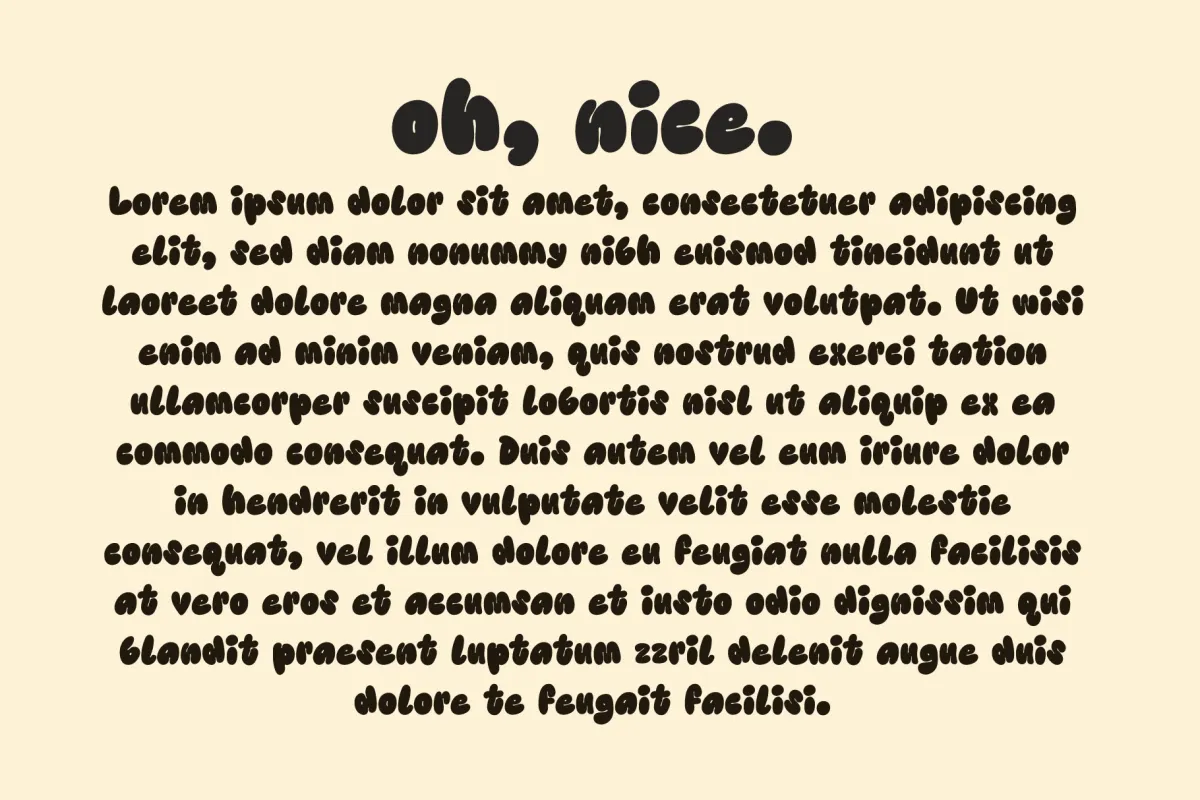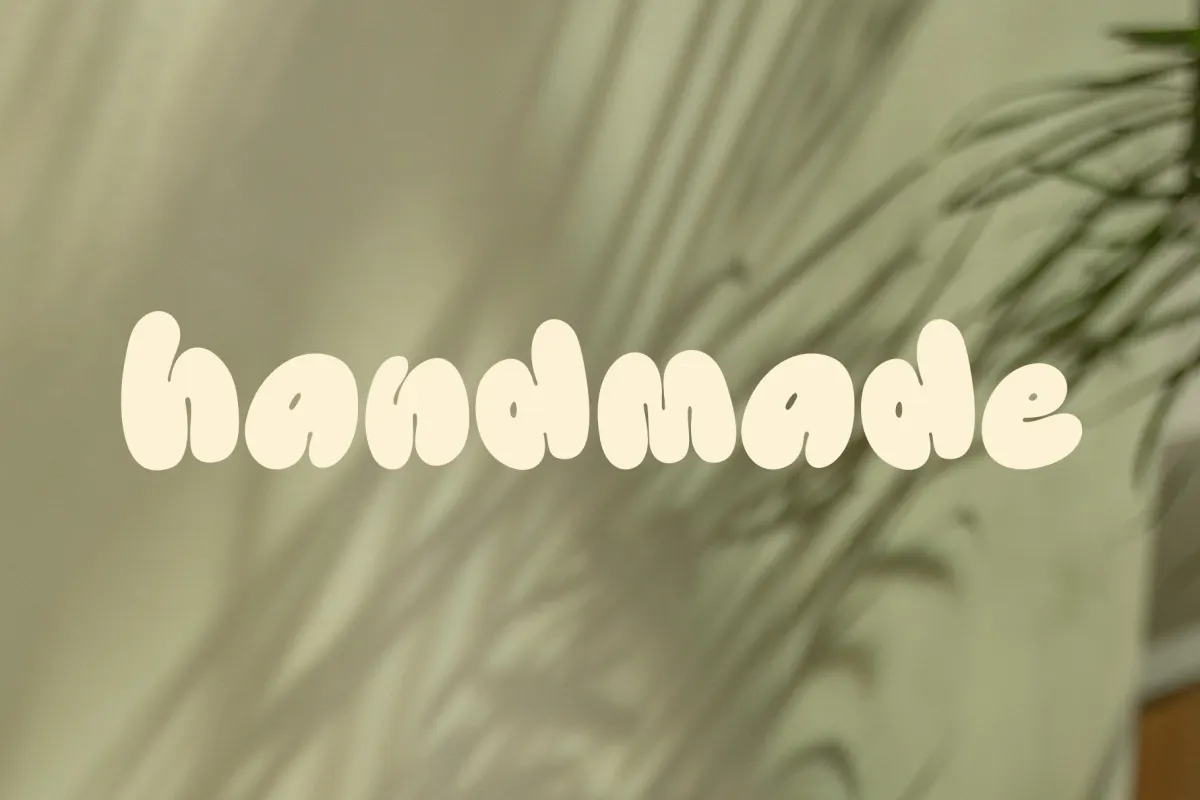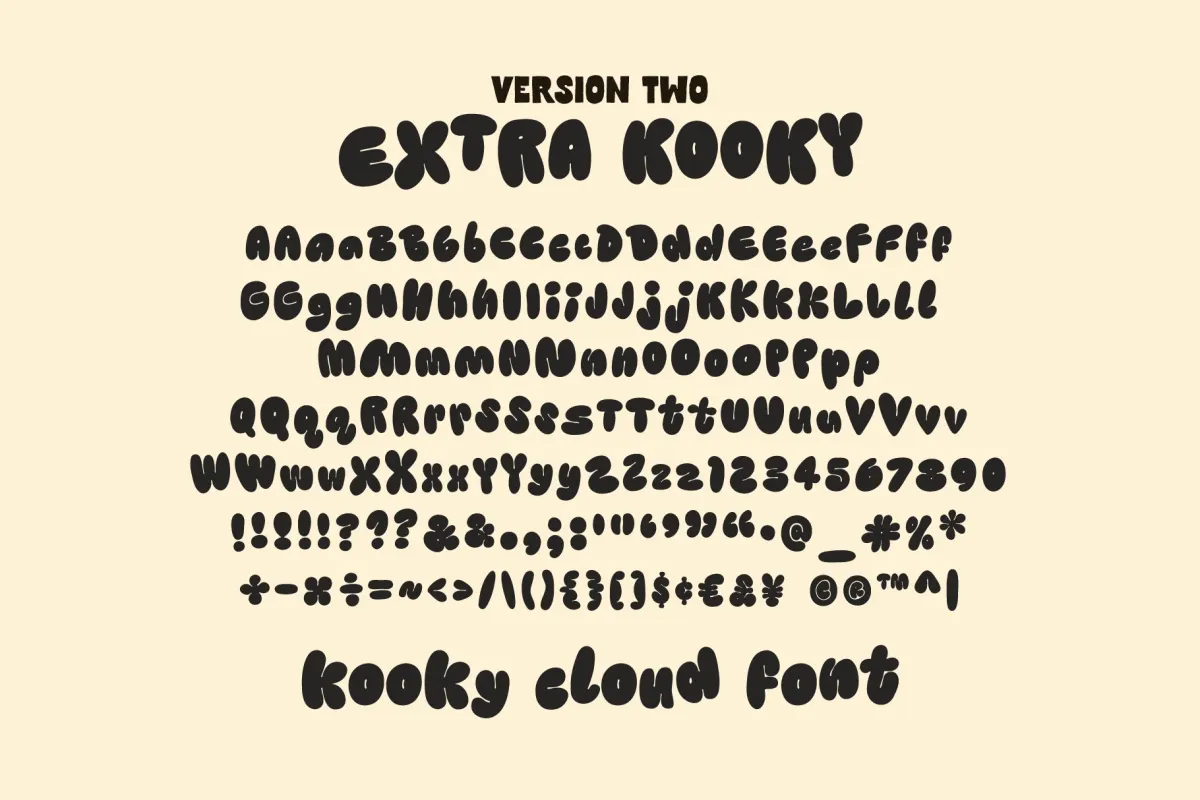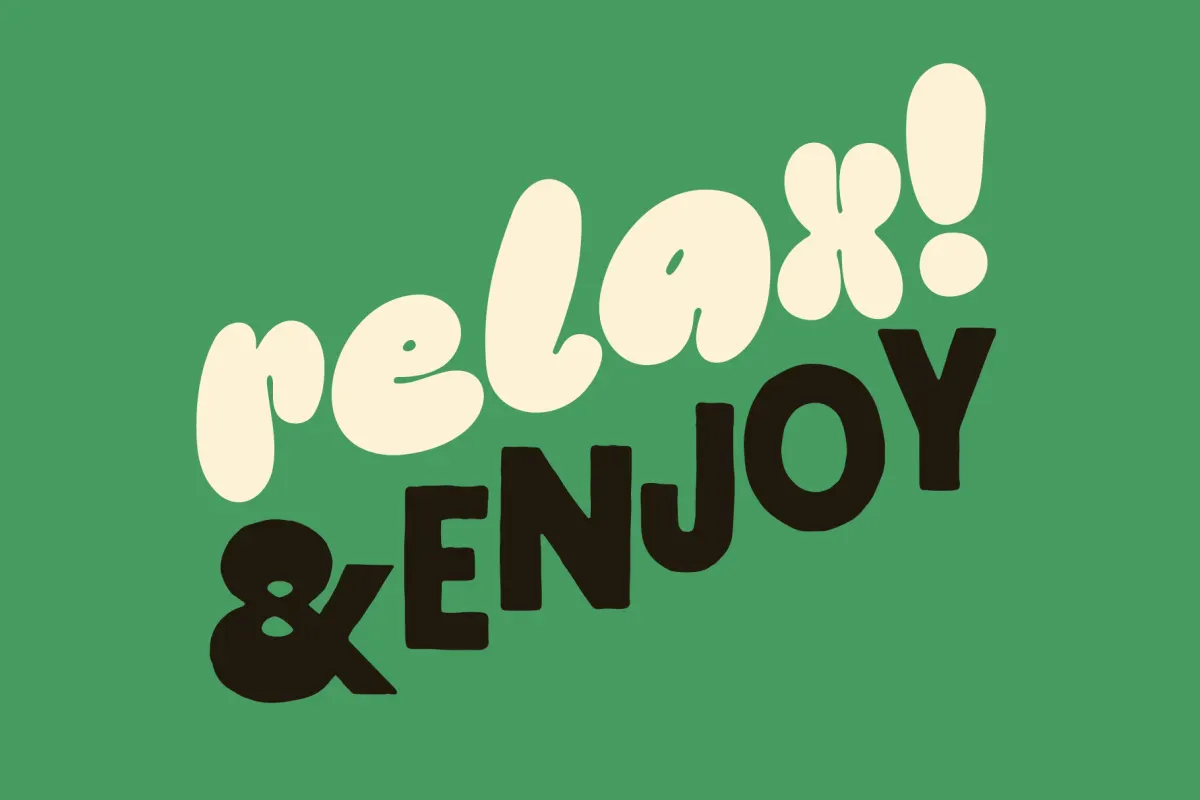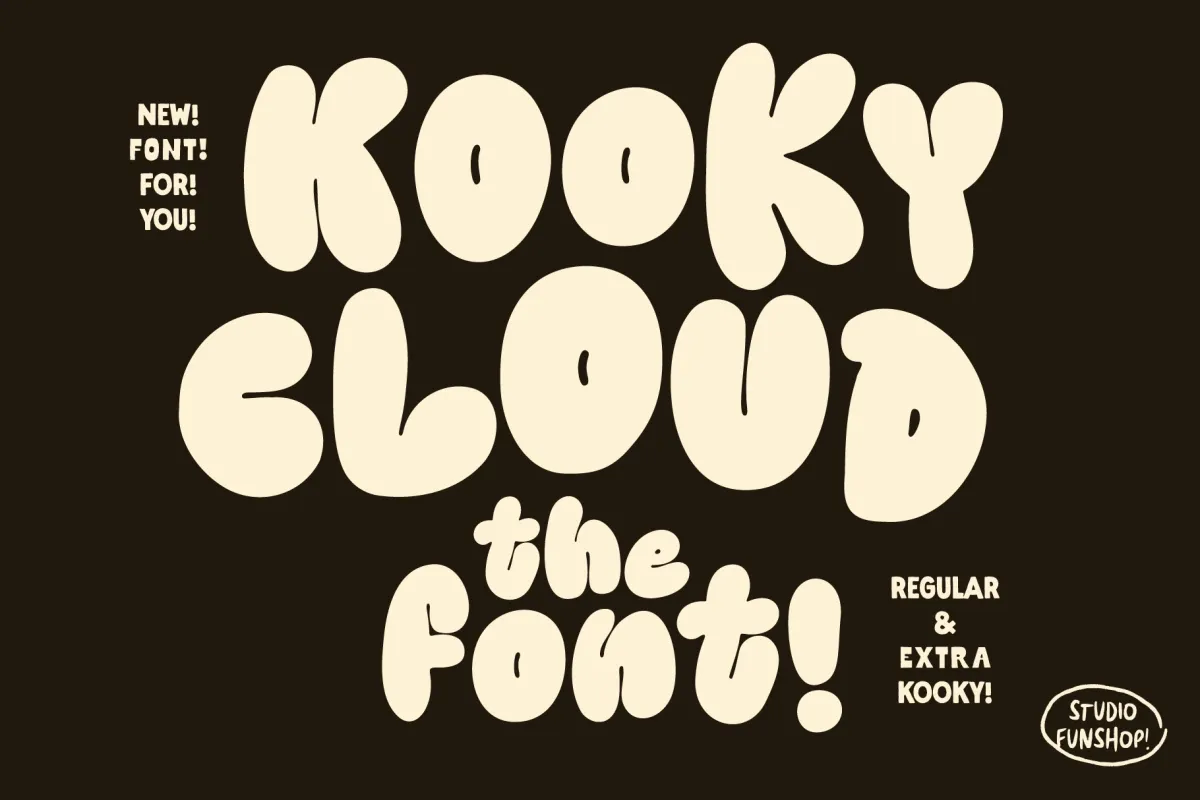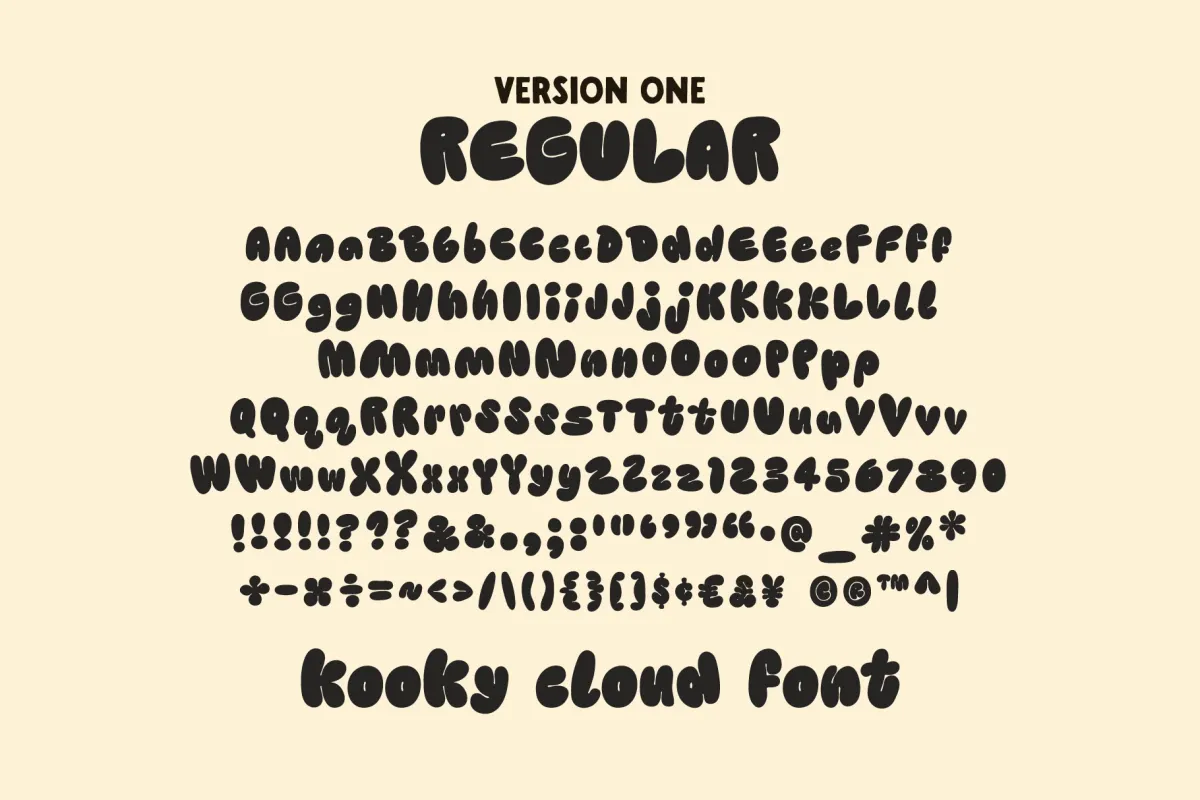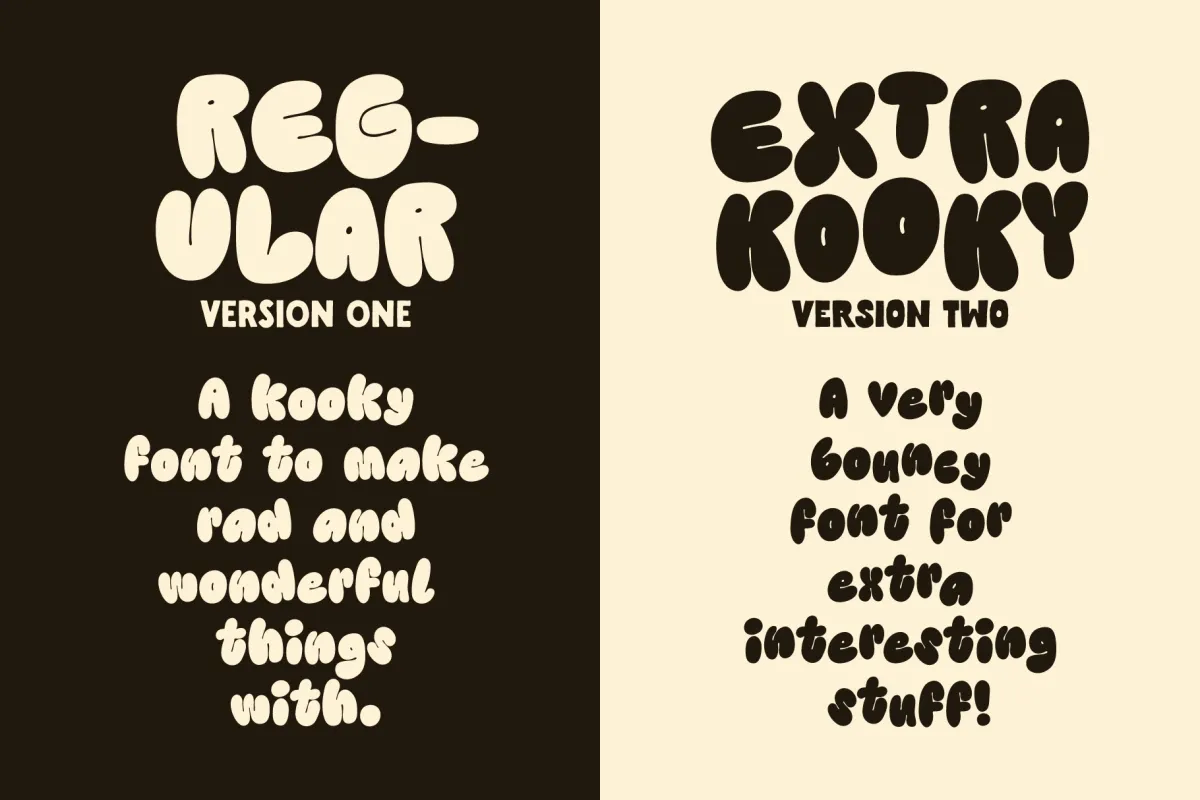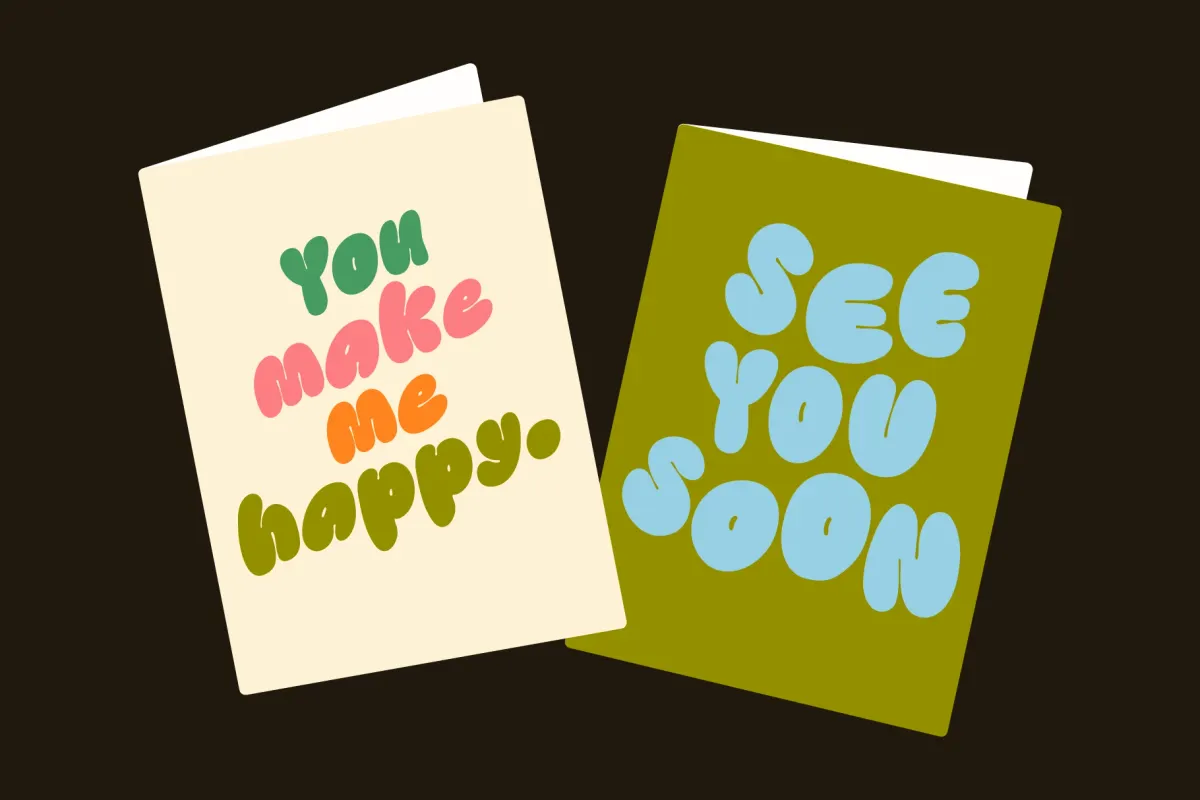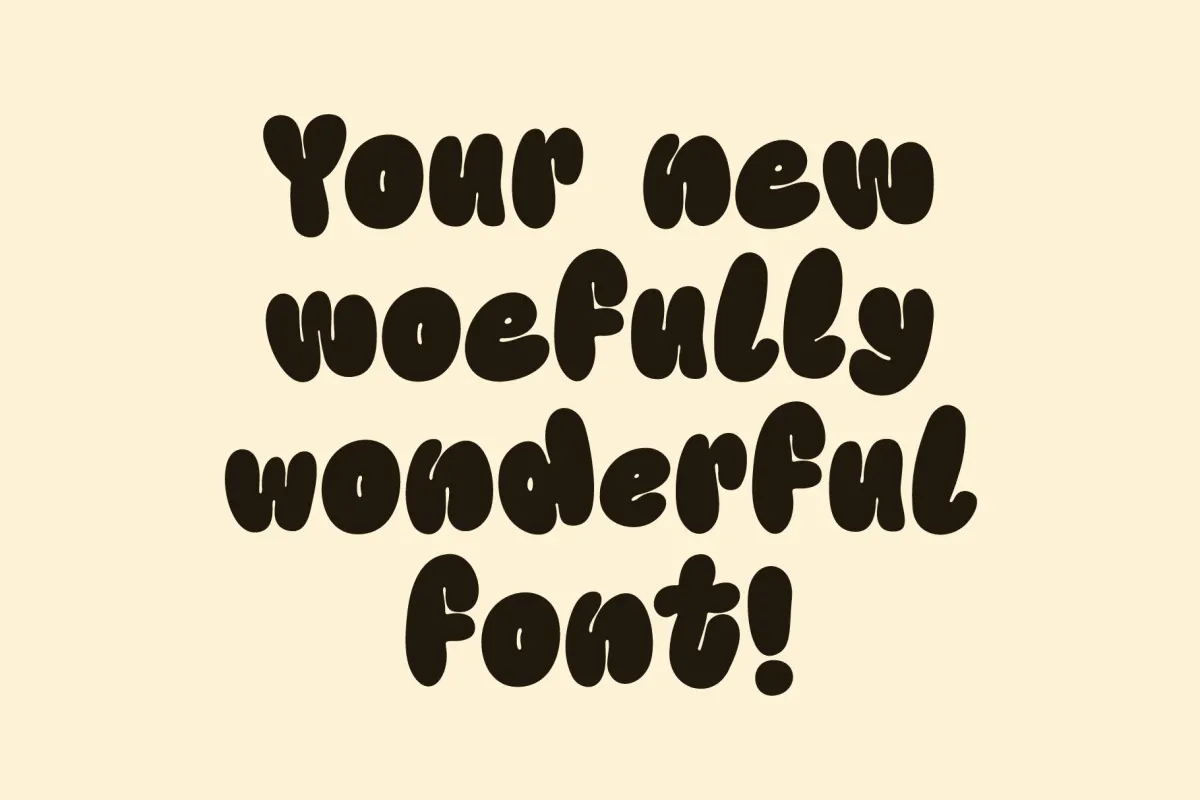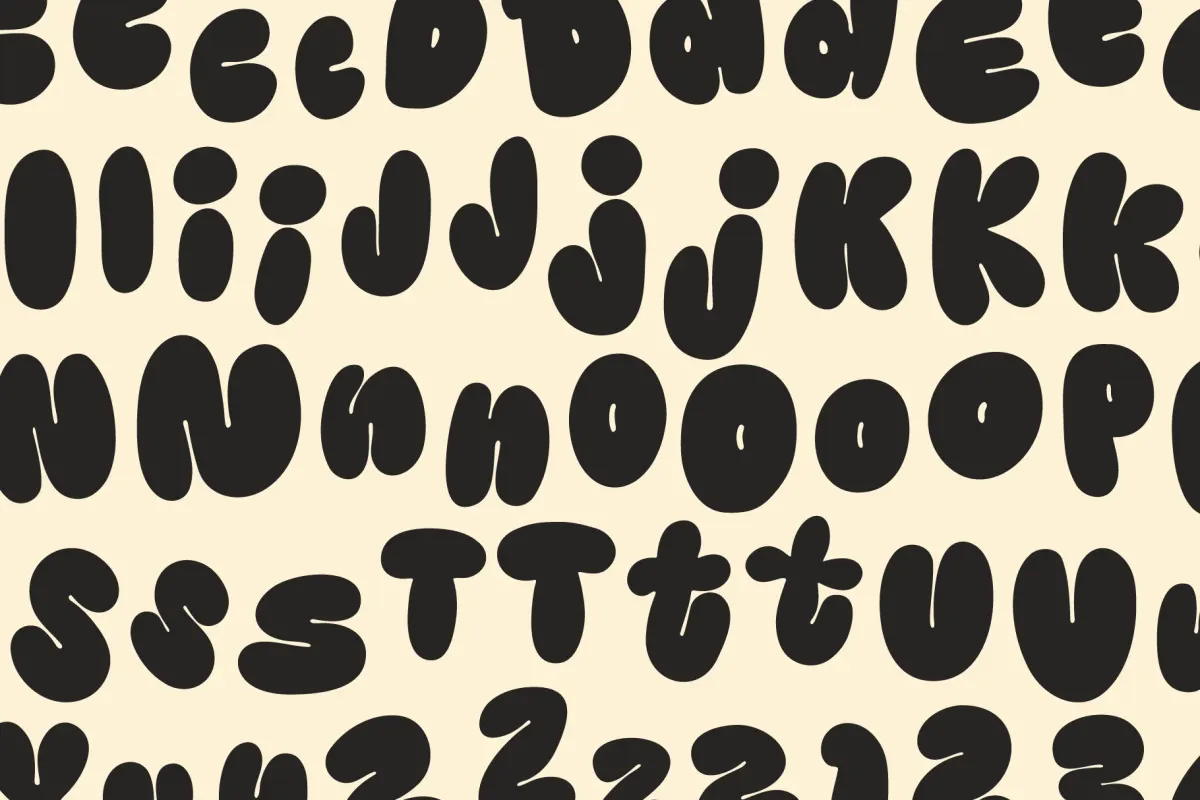
Kooky Cloud! Bold Bubble Font
ExtraKooky
This bold bubble font drifts in with the spirit of novelty lettering, retro children's books, inflatable signage, and cartoon title design, turning its playful visual references into a hand-drawn display face that's cheerfully overblown and full of bounce. The puffed shapes, rounded counters, and soft bulbous weight give the letters a cloudlike silhouette, while the handmade irregularity keeps everything feeling lively, oddball, and intentionally offbeat.
Rather than aiming for neat geometry, Kooky Cloud leans into the visual legacy of whimsical display typography — the kind used for candy packaging, comic captions, toy branding, scrapbook titles, and cheerful poster headlines.
- Logo design — playful brands, candy shops, toy projects, kids' labels, handmade businesses.
- Packaging design — sweets, snack bags, sticker packs, party favors, gift boxes.
- Posters and signs — markets, birthday events, classroom decor, pop-ups, announcements.
- Merchandise — t-shirts, tote bags, mugs, notebooks, stickers, badges, art prints.
- Editorial accents — bold headers, pull quotes, section titles, callouts, decorative captions.
- Uppercase & lowercase letters;
- Numbers, symbols, and punctuation;
- Alternate letters for uppercase and lowercase A–Z;
- Extra alternates for !, ?, and &.